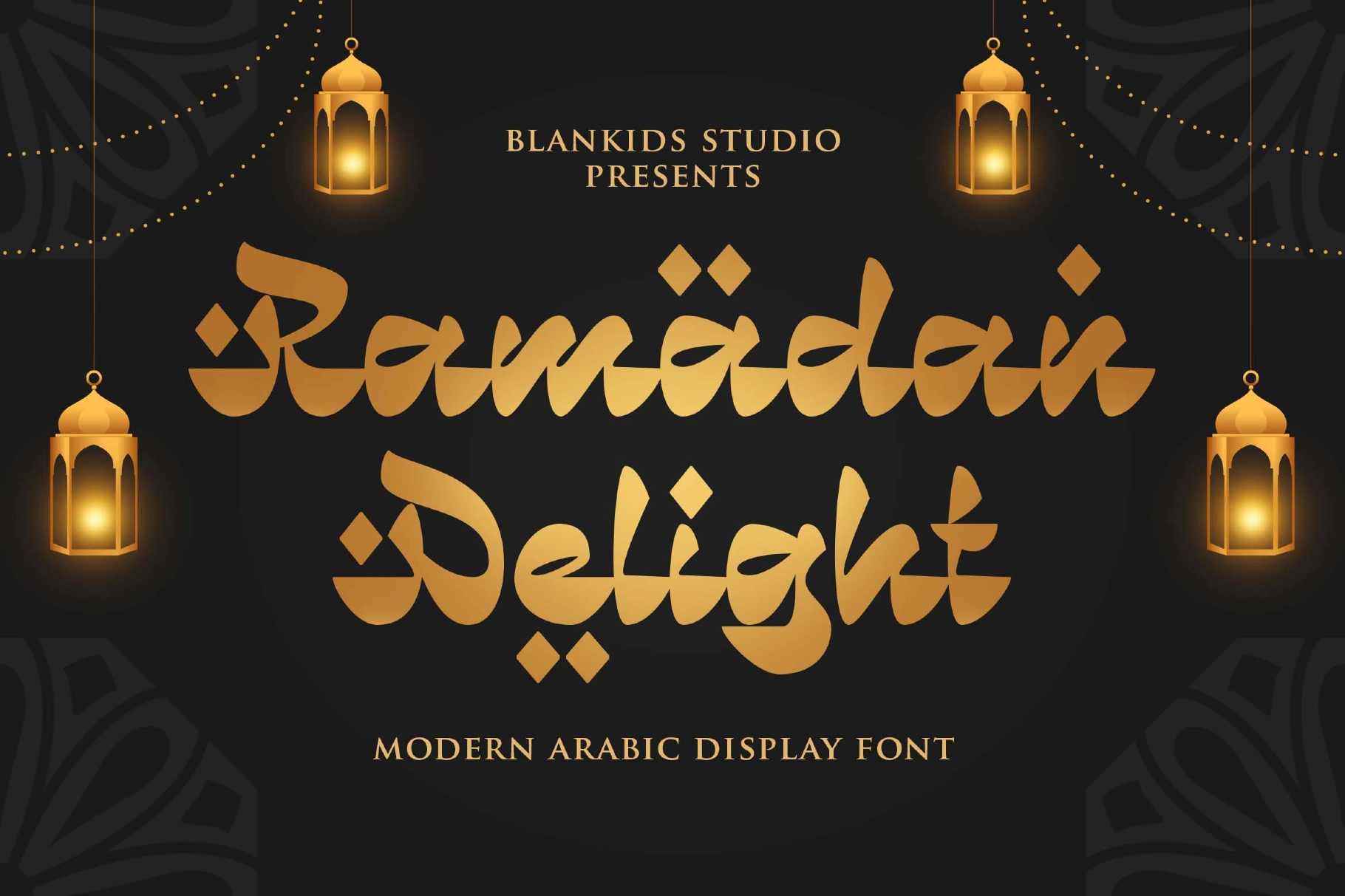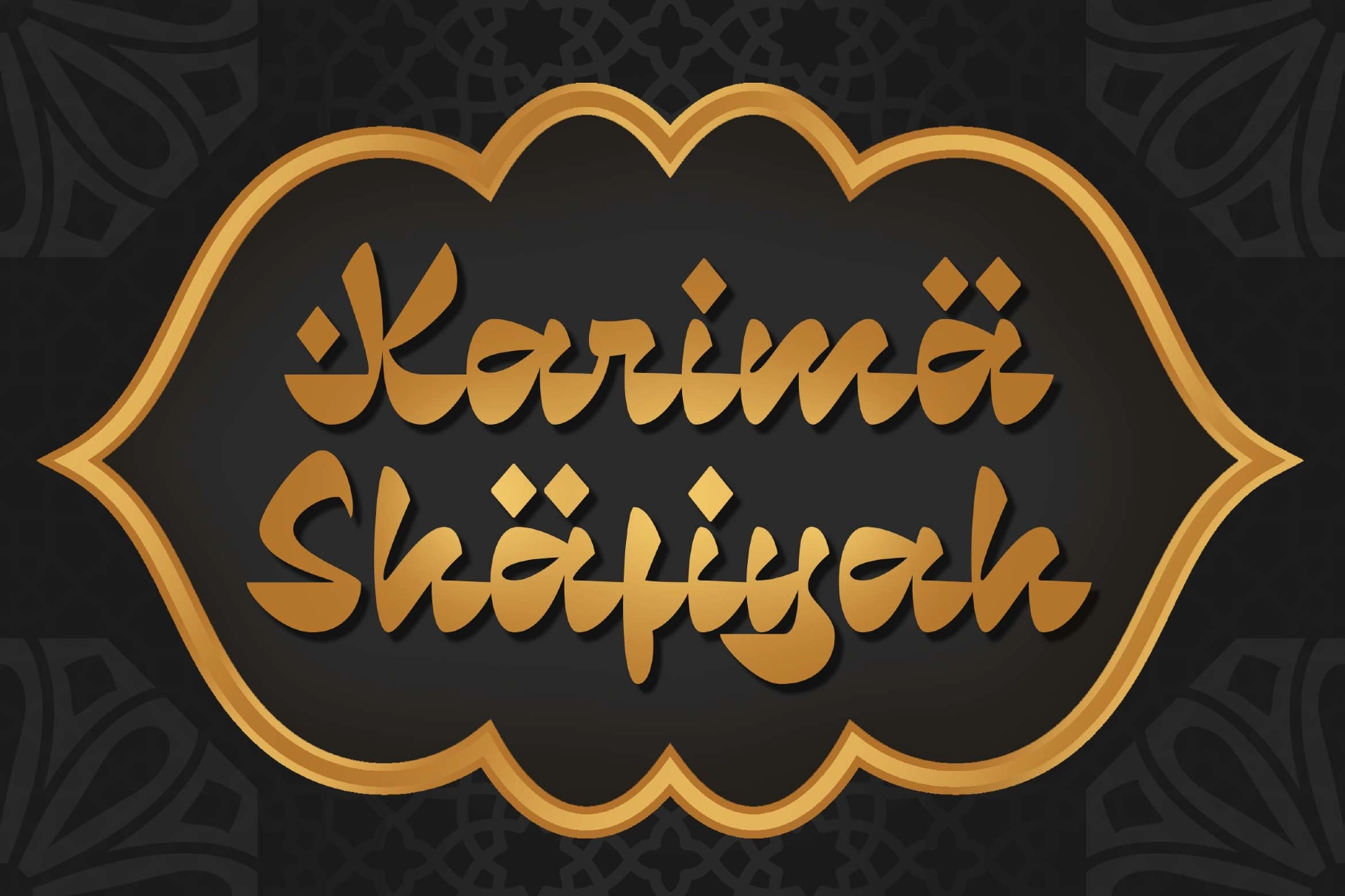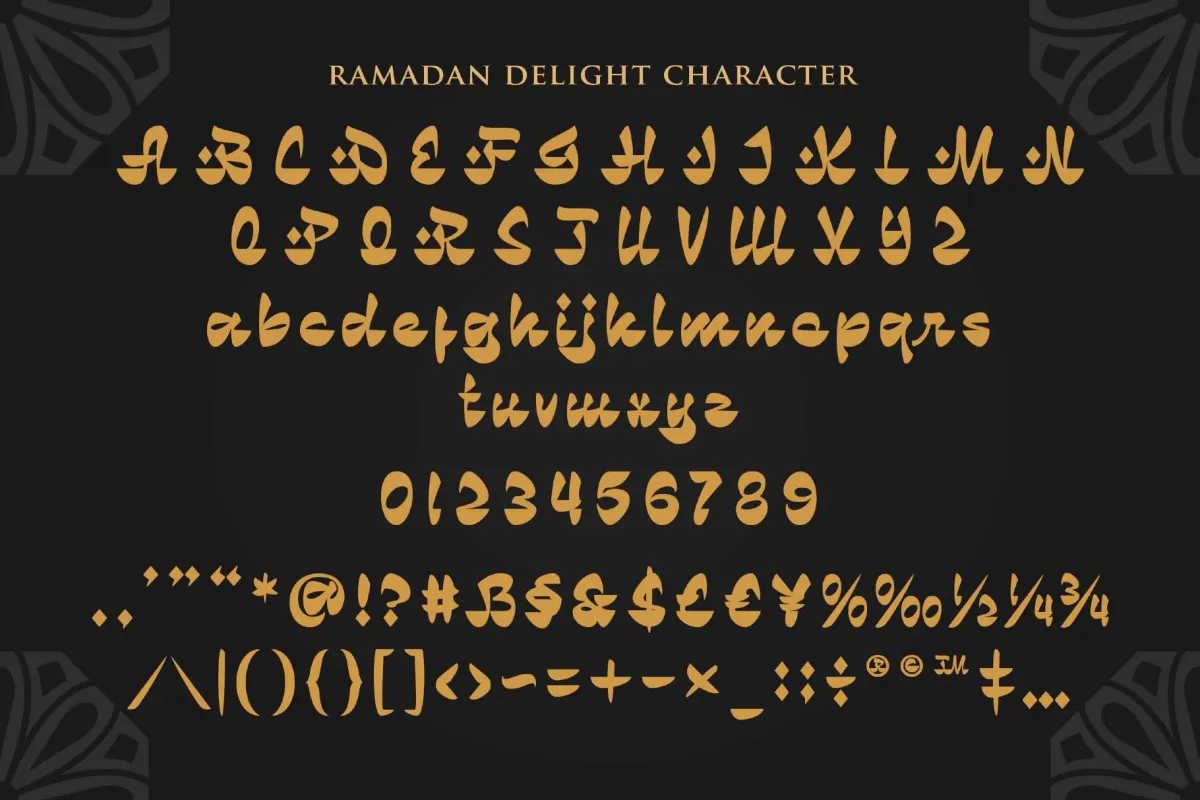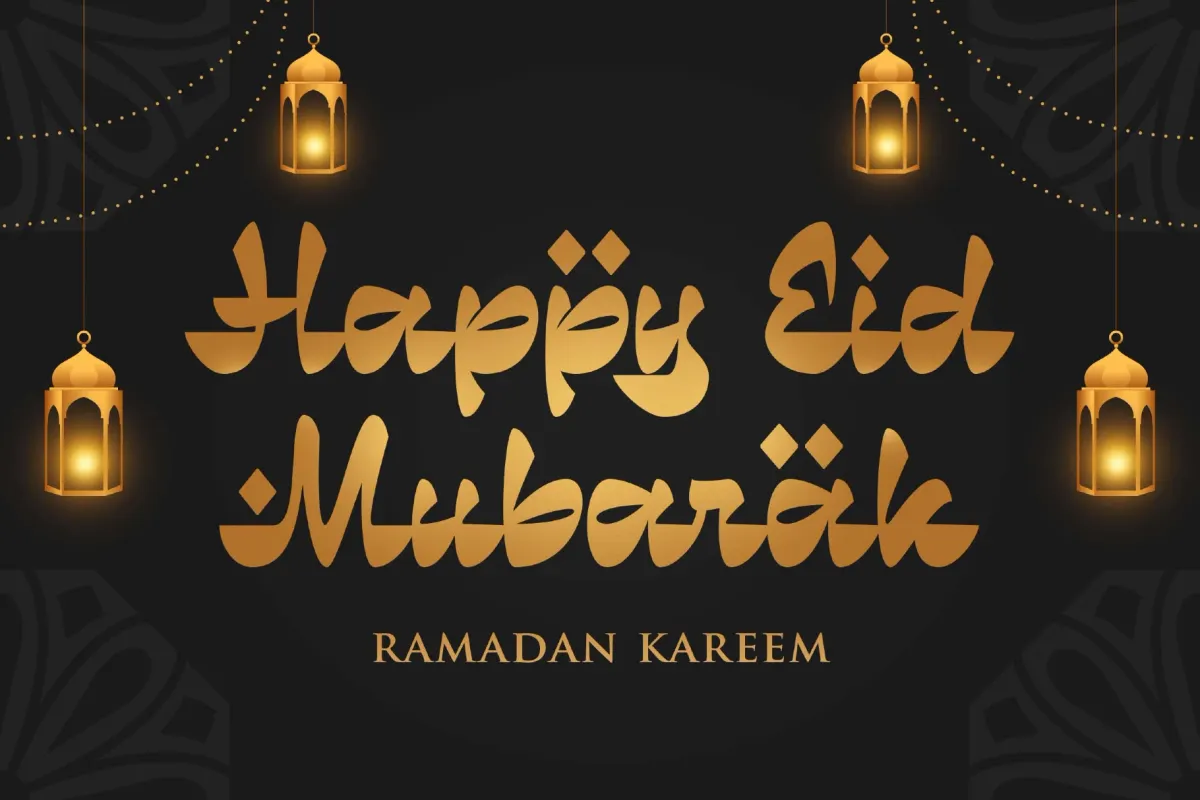
Ramadan Delight a Modern Arabic Display Font
Ramadan Delight
Ramadan Delight a arabic display font is made for any professional project branding, such as logotype, watermarks, poster, branding, promotions, product packaging, etc. Every letter has a arabic style design.
Ramadan Delight font includes a full set of arabic style uppercase and lowercase letters, numerals and punctuation. This font has a arabic display style. See the previews above to get some inspiration on how to use them.